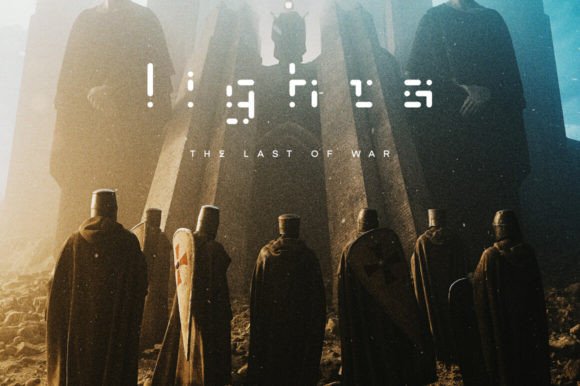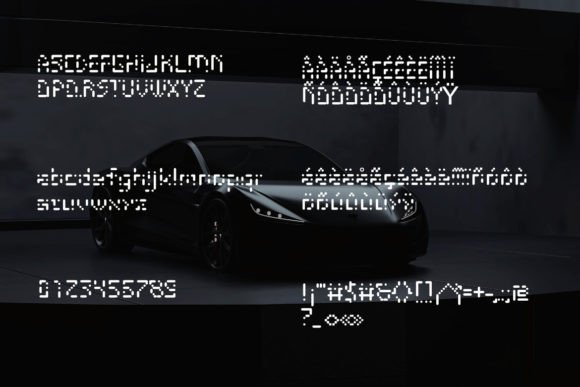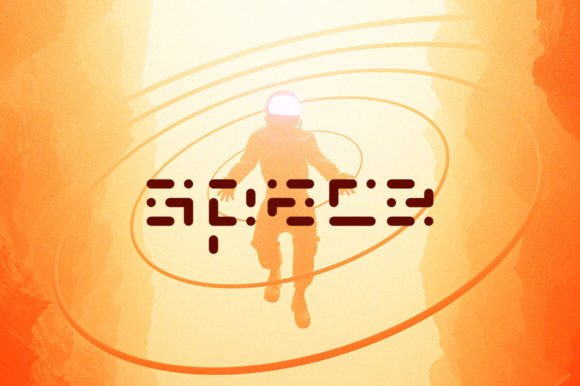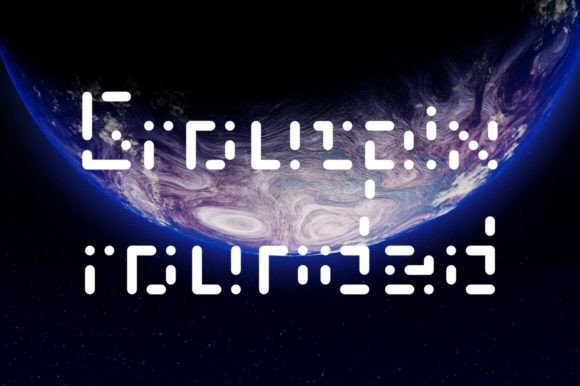
Groutpix Rounded Font: Elevate Your Designs with Futuristic Flair
In the realm of typography, fonts play a pivotal role in conveying messages, evoking emotions, and creating lasting impressions. Among the myriad of fonts available, Groutpix Rounded stands out as a beacon of innovation, seamlessly blending elegance with a futuristic edge. This article delves into the unique characteristics of Groutpix Rounded, exploring how its sleek curves and sharp angles can infuse your designs with a dynamic energy that captivates and engages your audience.
The Essence of Groutpix Rounded
Groutpix Rounded is not just a font; it’s an experience. Its design is meticulously crafted to offer a harmonious blend of rounded and angular features, making it a versatile tool for designers and crafters. The rounded elements bring a sense of softness and approachability, while the sharp angles inject a dose of modernity and precision. This combination results in a font that is both elegant and cutting-edge, perfect for projects that demand a contemporary aesthetic.
Infusing Designs with Futuristic Flair
The term “futuristic” often conjures images of sleek lines, neon lights, and a sense of forward-thinking innovation. Groutpix Rounded embodies these qualities, making it an ideal choice for designers looking to imbue their work with a futuristic vibe. Whether you’re working on a branding project, a website design, or a digital app, this font can help you create a visual identity that feels both modern and forward-thinking.
Captivating and Engaging Your Audience
The ultimate goal of any design project is to engage the audience, conveying your message in a way that resonates and lingers. Groutpix Rounded, with its unique blend of curves and angles, can help achieve this goal. Its distinctive look can make your content stand out in a crowded digital landscape, drawing viewers in and keeping them engaged. Whether you’re aiming to evoke a sense of sophistication, innovation, or playfulness, this font provides the versatility to adapt to your creative vision.
Embracing the Future of Typography
Typography is an ever-evolving field, with new trends and technologies continually shaping the way we interact with text. Groutpix Rounded is at the forefront of this evolution, representing a new wave of fonts designed to meet the demands of modern design. By embracing this font, you’re not just choosing a typographic style; you’re adopting a forward-thinking approach to design that acknowledges the importance of innovation and adaptability.
Elevating Creative Projects
For designers and crafters, the quest for the perfect font is a perpetual journey. Groutpix Rounded offers a solution that can elevate your projects from ordinary to extraordinary. Its bold and dynamic energy can transform your designs, adding a layer of sophistication and modernity that’s hard to achieve with more traditional fonts. Whether you’re working on a personal project or a client’s brief, this font can help you deliver work that not only meets but exceeds expectations.
Groutpix Rounded is more than just a font; it’s a design statement. Its sleek curves and sharp angles create a harmonious blend of elegance and innovation, making it the perfect tool for designers and crafters looking to infuse their work with a futuristic flair. By embracing Groutpix Rounded, you’re not just choosing a typographic style; you’re elevating your creative projects with a bold and dynamic energy that captivates and engages. As we look to the future of design, fonts like Groutpix Rounded will undoubtedly play a pivotal role in shaping the visual landscape of tomorrow.
Getting Started with Groutpix Rounded
Ready to experience the futuristic flair of Groutpix Rounded for yourself? Here are a few tips to get you started:
- Experiment with Sizes: Groutpix Rounded can make a statement in large sizes or work subtly in smaller applications. Play around with different sizes to find the perfect fit for your project.
- Pair it Wisely: Consider pairing Groutpix Rounded with complementary fonts to create visual interest and hierarchy in your designs.
- Explore Digital Applications: Given its modern and sleek appearance, Groutpix Rounded is particularly well-suited for digital projects, including websites, apps, and social media graphics.
With Groutpix Rounded, the possibilities are endless. Dive into the world of futuristic typography and discover how this innovative font can transform your designs.